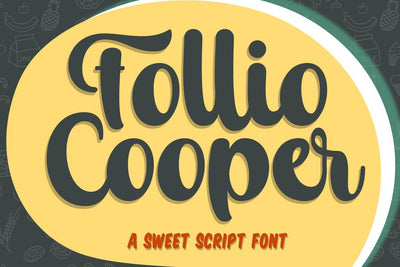
Follio Cooper - Bold Script Font
Fall in love with its authentic feel and use it to create gorgeous wedding invitations, beautiful stationary art, eye-catching social media posts, and cute greeting cards.
This font is PUA encoded which means you can access all of the cute glyphs and swashes with ease! It also features a wealth of special features including alternate glyphs and ligatures.This font is suitable for any design like branding, quotes and etc. I hope you enjoy it !! Thanks for visiting and downloading my font!
- ligature